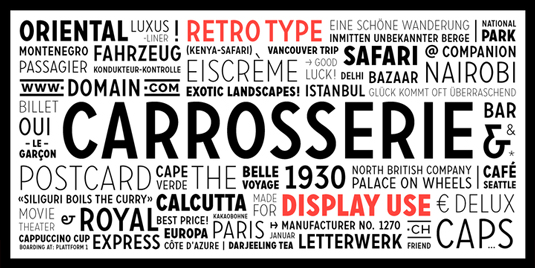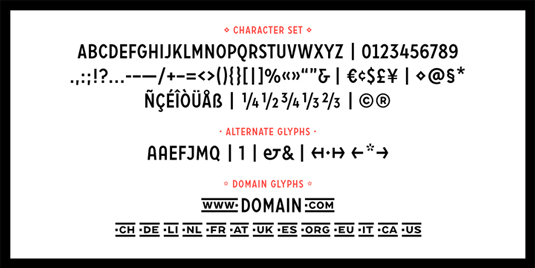
Font of the day: Carrosserie
Carrosserie by Fabian Widmer
Created by designer Fabian Widmer for display use, Carrosserie typeface was inspired by the shapes of the '30s. Available in thin, extra light, light, regular, medium, bold and fat, this bold font is great for creating cool retro-style designs.